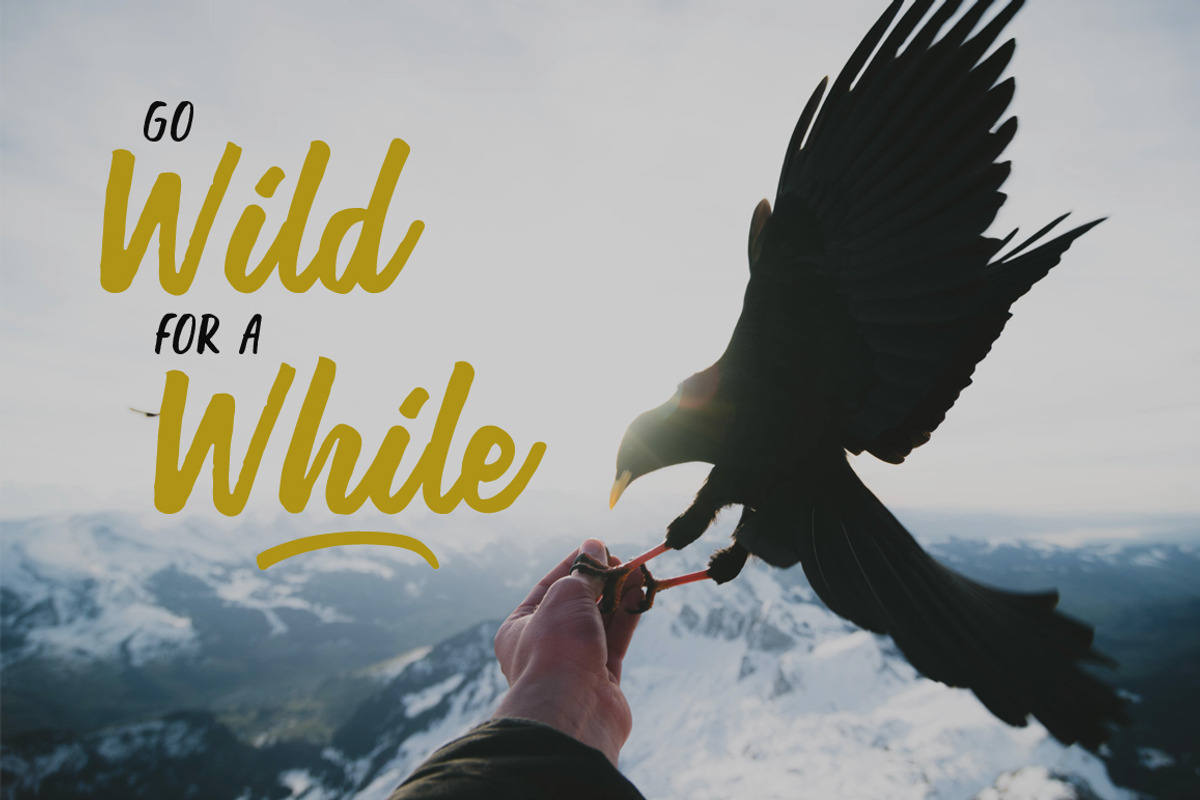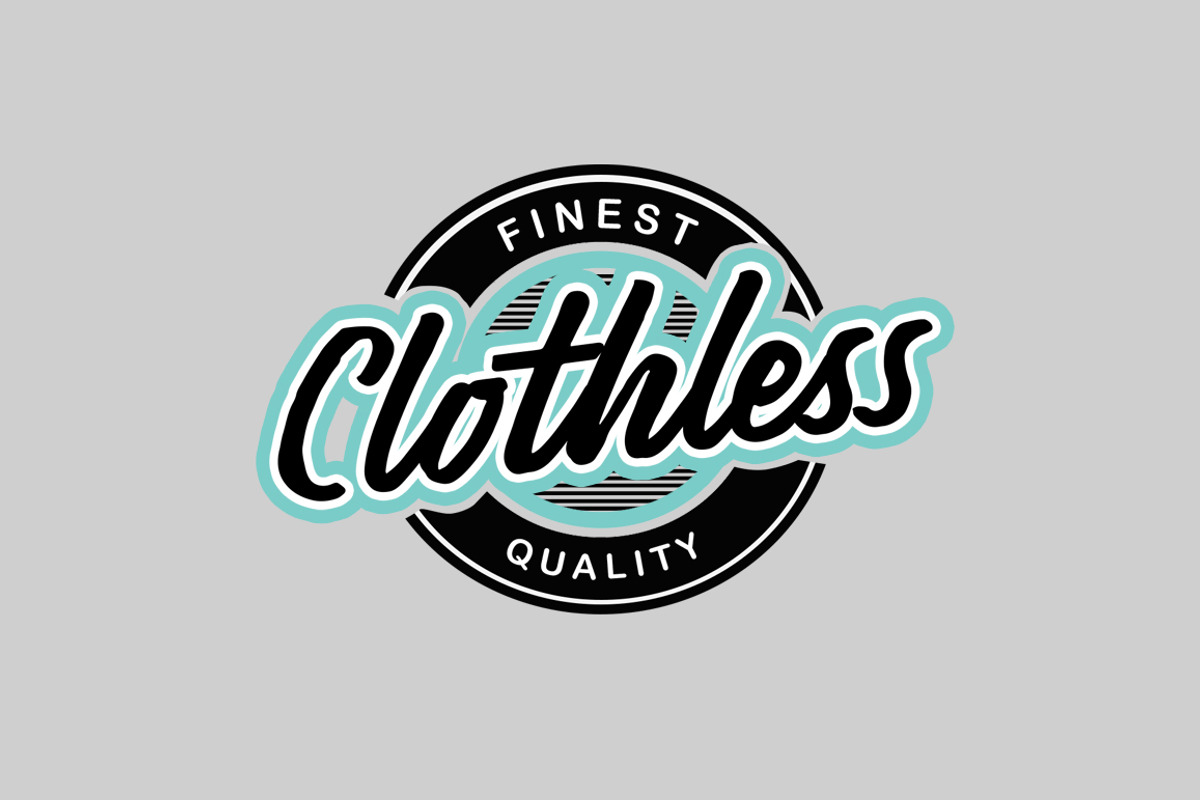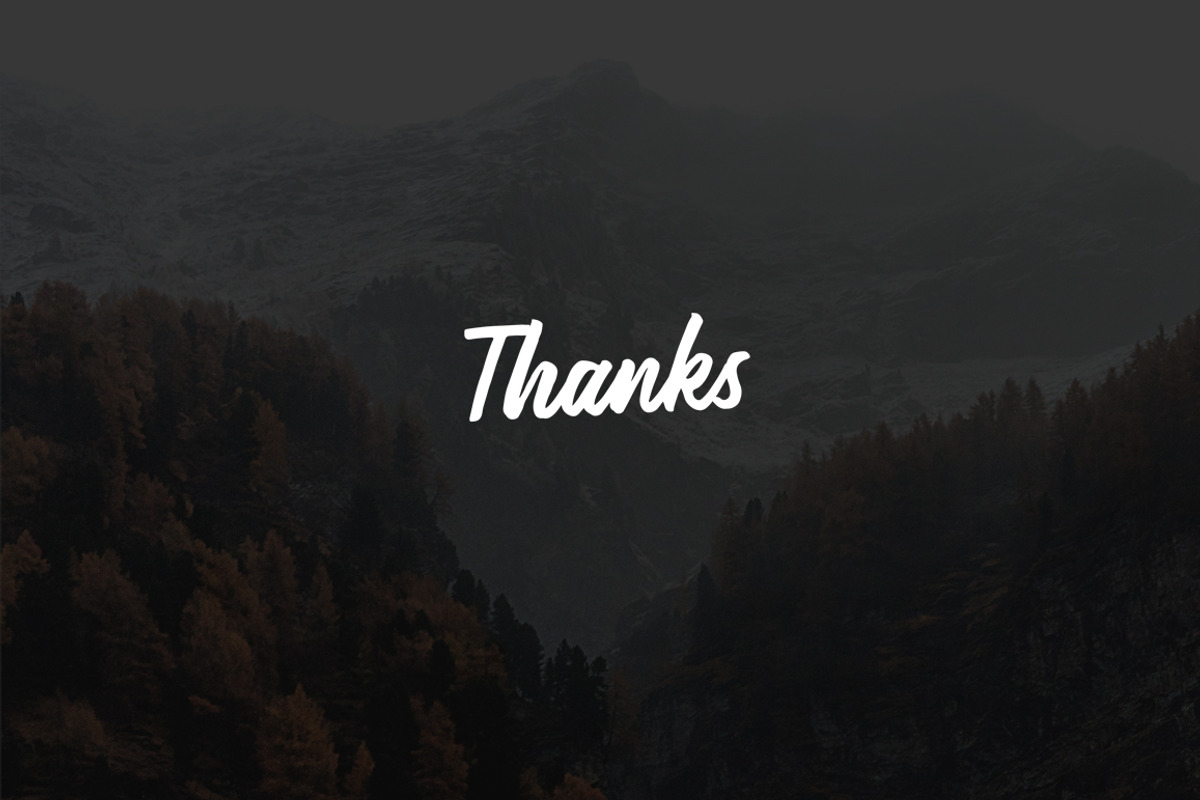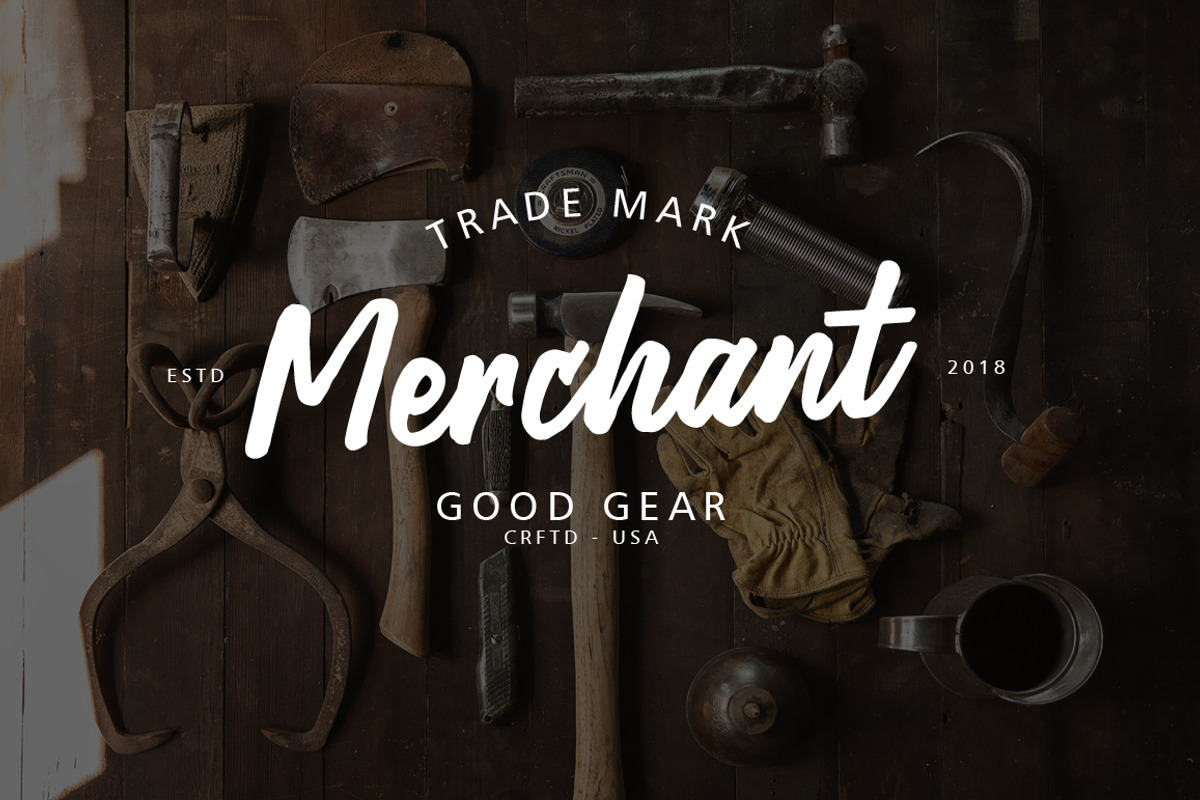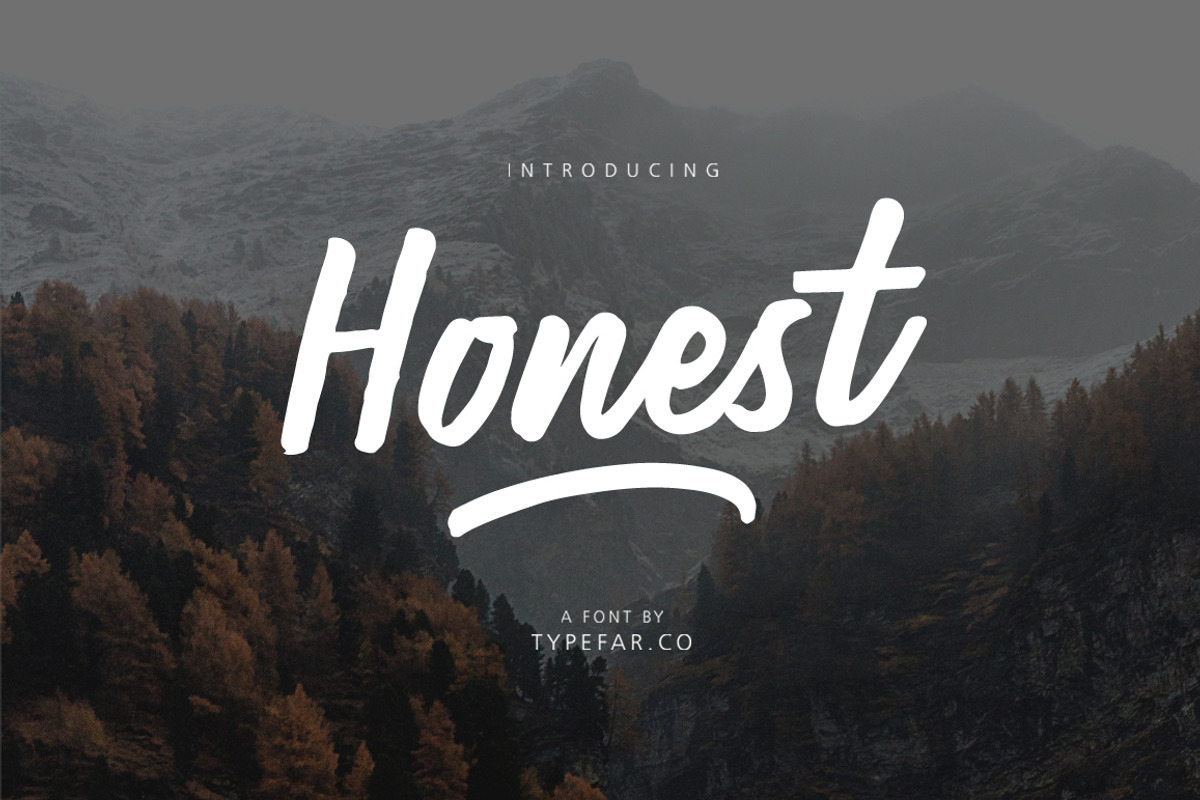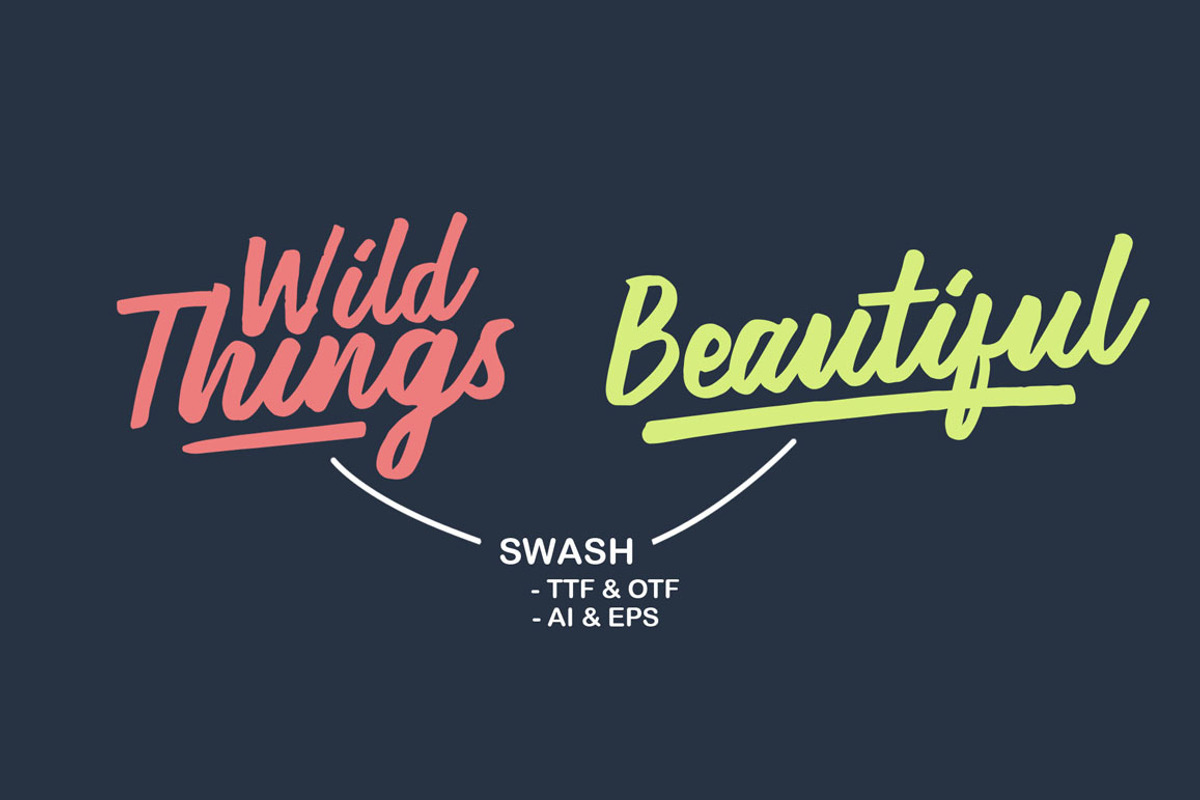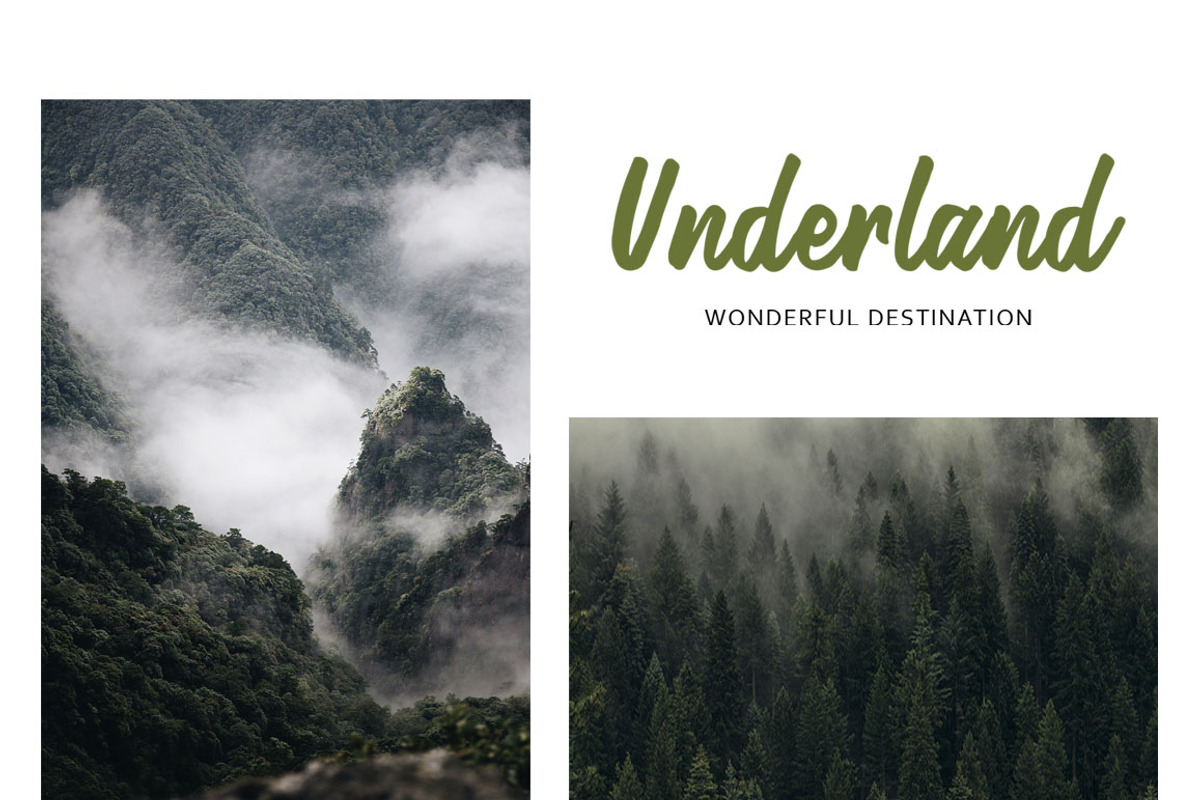
Honest Typeface
Holla... Introducing Honest font . this font looks natural like a handmade. This font is best used for your design project that has the concept of fun, brave and sporty. Can also be applied to the design of a logotype, header website, make some lettering a quote, t-shirt design etc.